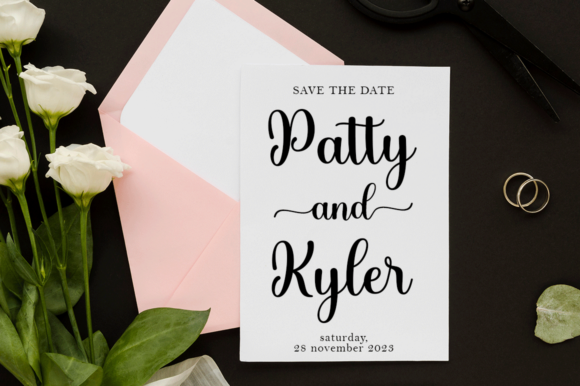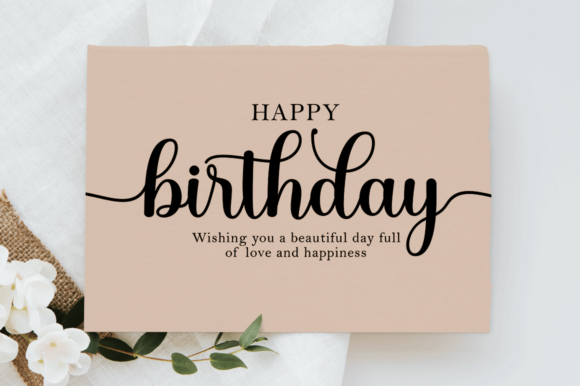
Baby Yasmine Script Font
db-ku.com - Script & Handwritten -- Baby Yasmine Script is an elegant script font with a contemporary atmosphere and impeccable form, inspired by timeless classic calligraphy. This font is PUA encoded which means you can access all of the glyphs and swashes with ease!